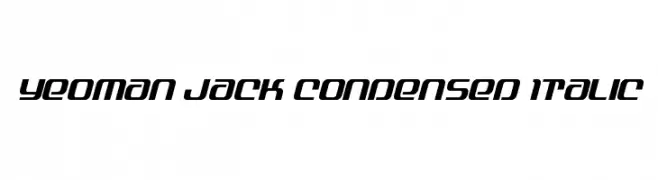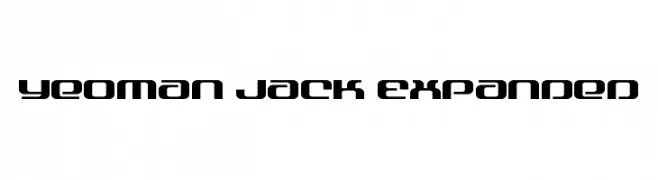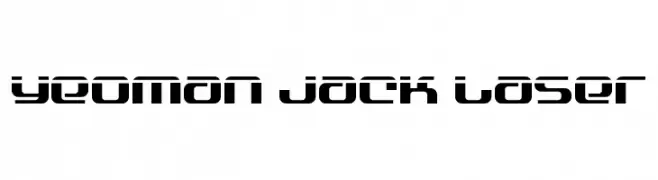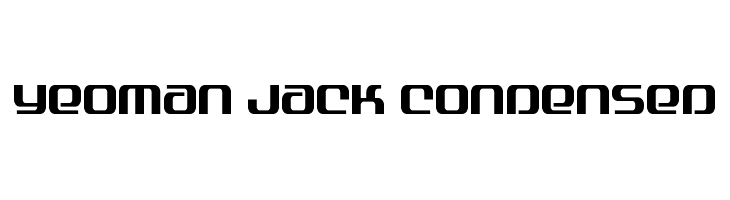
A bold, geometric, and condensed font with a futuristic style.
A bold, italic, and condensed font with a modern, dynamic style.
A bold, futuristic font with geometric shapes and expanded width.
A futuristic, striped font with a digital, gradient-like appearance.
A modern, italic font with a gradient effect and striped pattern.
A bold, futuristic font with a halftone effect and geometric structure.
A bold, italicized font with a modern halftone effect and dynamic style.
A modern, italic font with a sleek, futuristic design.
A futuristic, geometric font with bold, angular letterforms.
A bold, futuristic font with geometric, segmented letterforms.